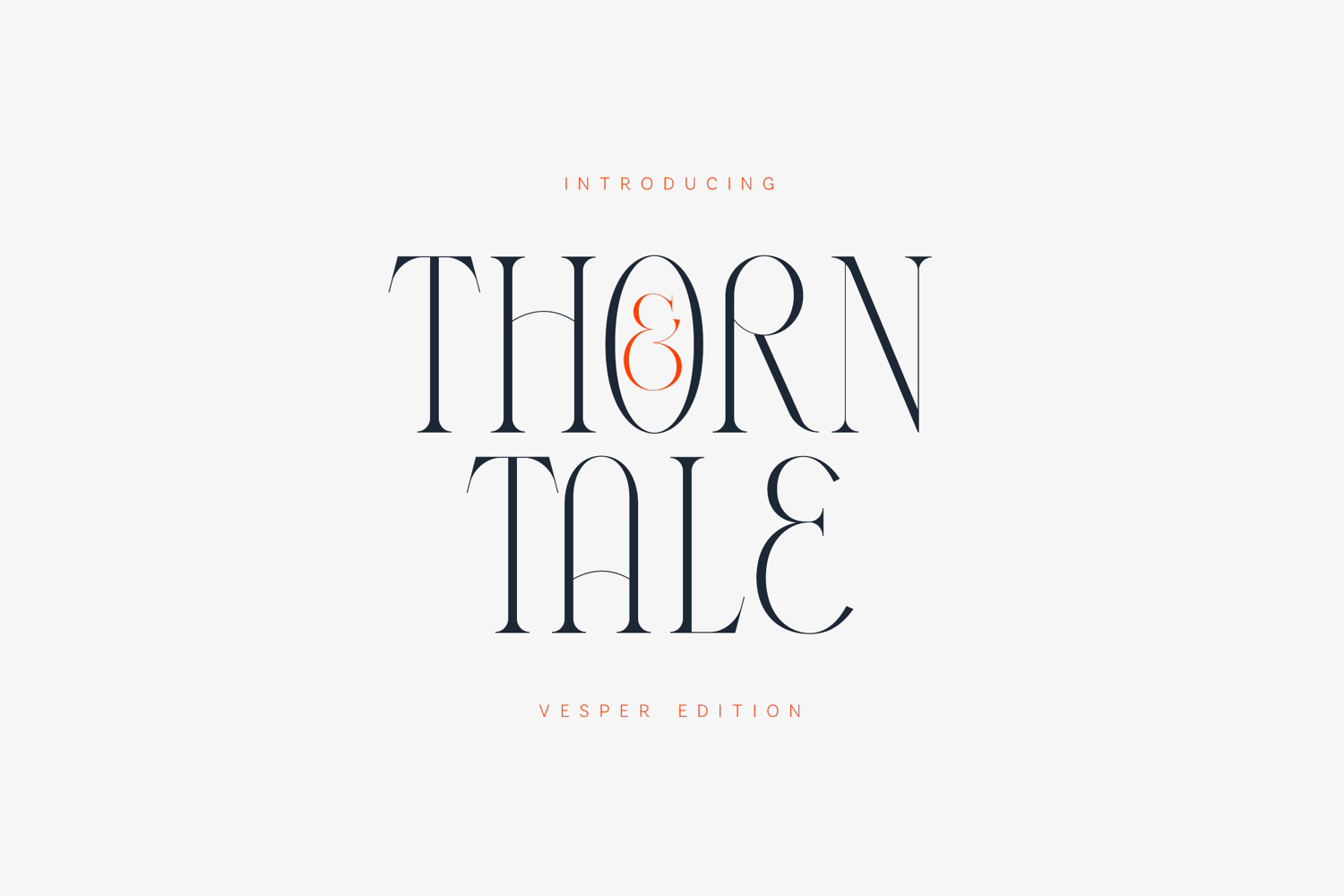
Thorntale Elegant Modern Serif Font
Thorntale is an elegant modern serif font defined by tall proportions, delicate curves, and refined contrast. Designed to feel expressive yet restrained, it blends classical serif foundations with a contemporary, editorial edge.
With its slender strokes and graceful letterforms, Thorntale is ideal for fashion editorials, luxury branding, book covers, magazines, high-end packaging, and artistic typography. The font carries a poetic, cinematic tone that works beautifully in large headlines and carefully crafted layouts.
Thorntale offers a strong visual identity while remaining clean and readable, making it suitable for both expressive display use and refined brand systems. Its balanced character gives designers a premium serif that feels modern, sophisticated, and timeless.